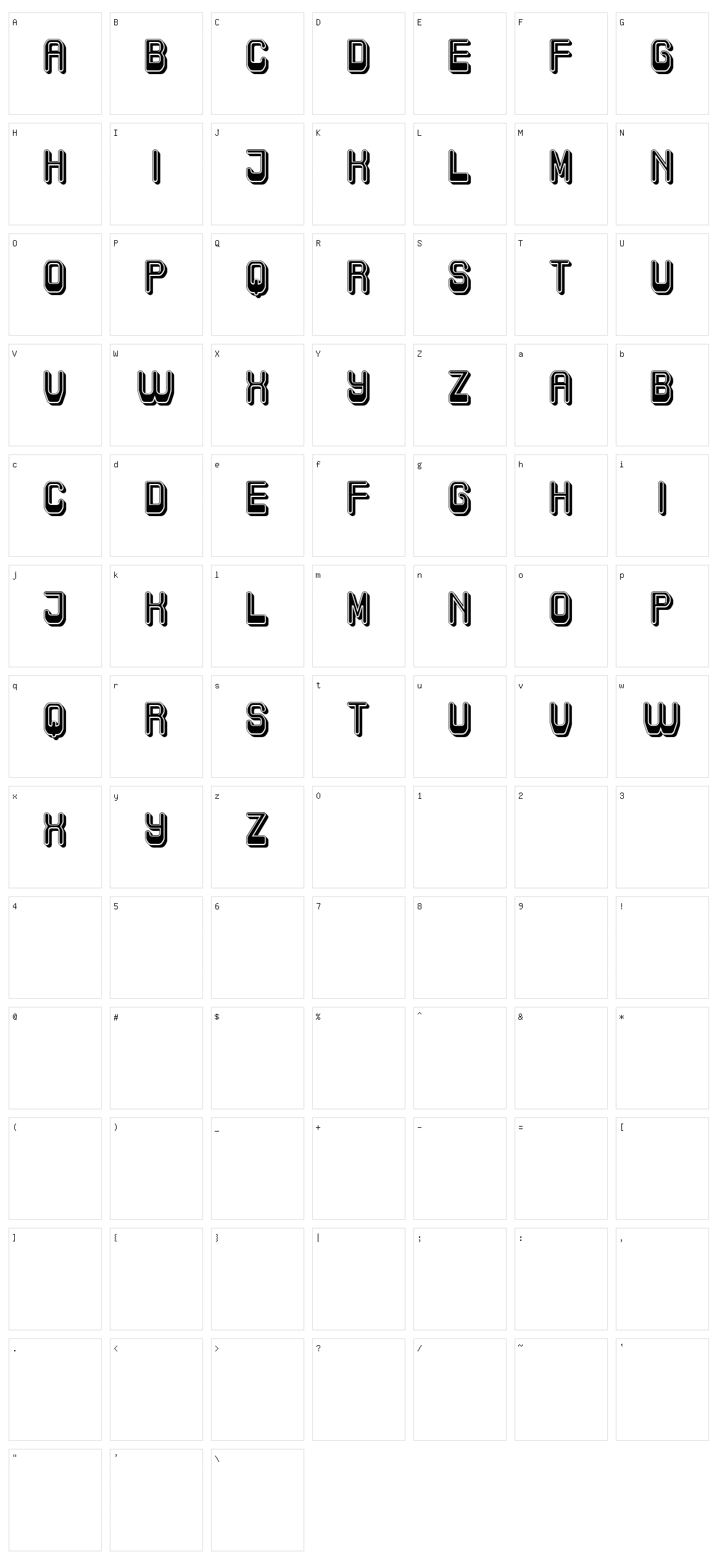
The free font Unique is carefully designed by Vladimir Nikolic, showcasing a thoughtful balance of creativity and usability and falls under the Groovy font style. When you download the ZIP file, it contains only 13.36 KB of font files, making it lightweight and quick to download. Please review the license details below to understand permitted usage and distribution rights. If license information is not available, we recommend using this font for personal projects only or contacting the author directly for commercial usage permissions.